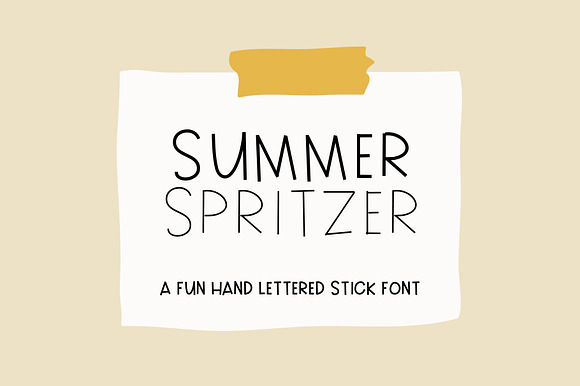
Summer Spritzer Font
Summer Spritzer Font Cute and Quirky, perfect for graphic tees and invites. Create your next project with this adorable playful font.
Summer Spritzer Font by Jande Summer fits naturally into Branding, posters, packaging, typography.